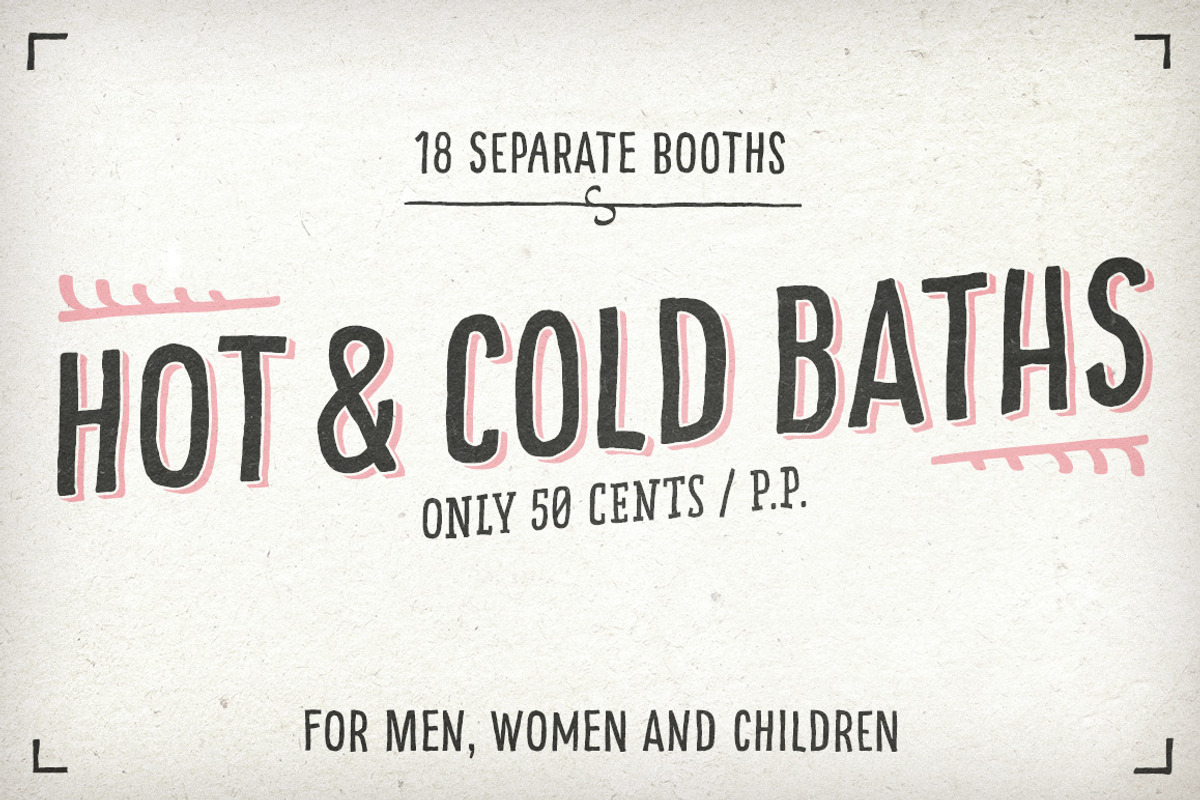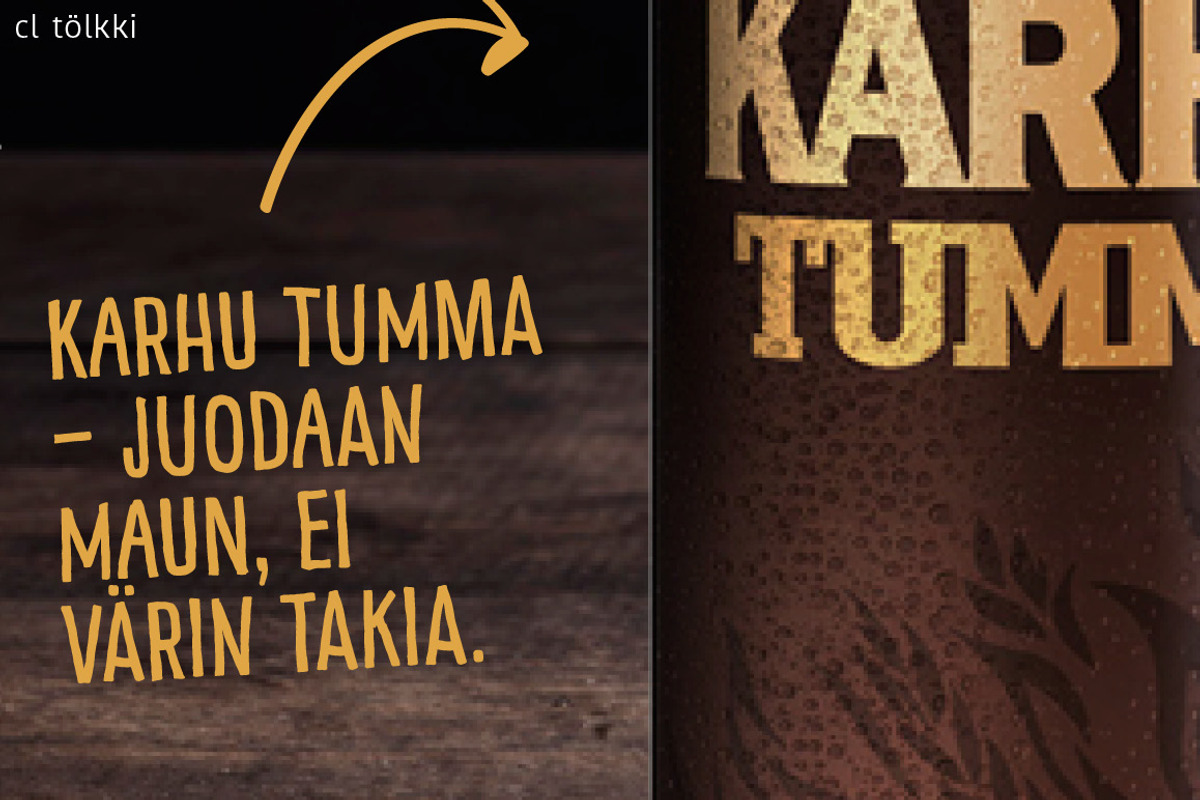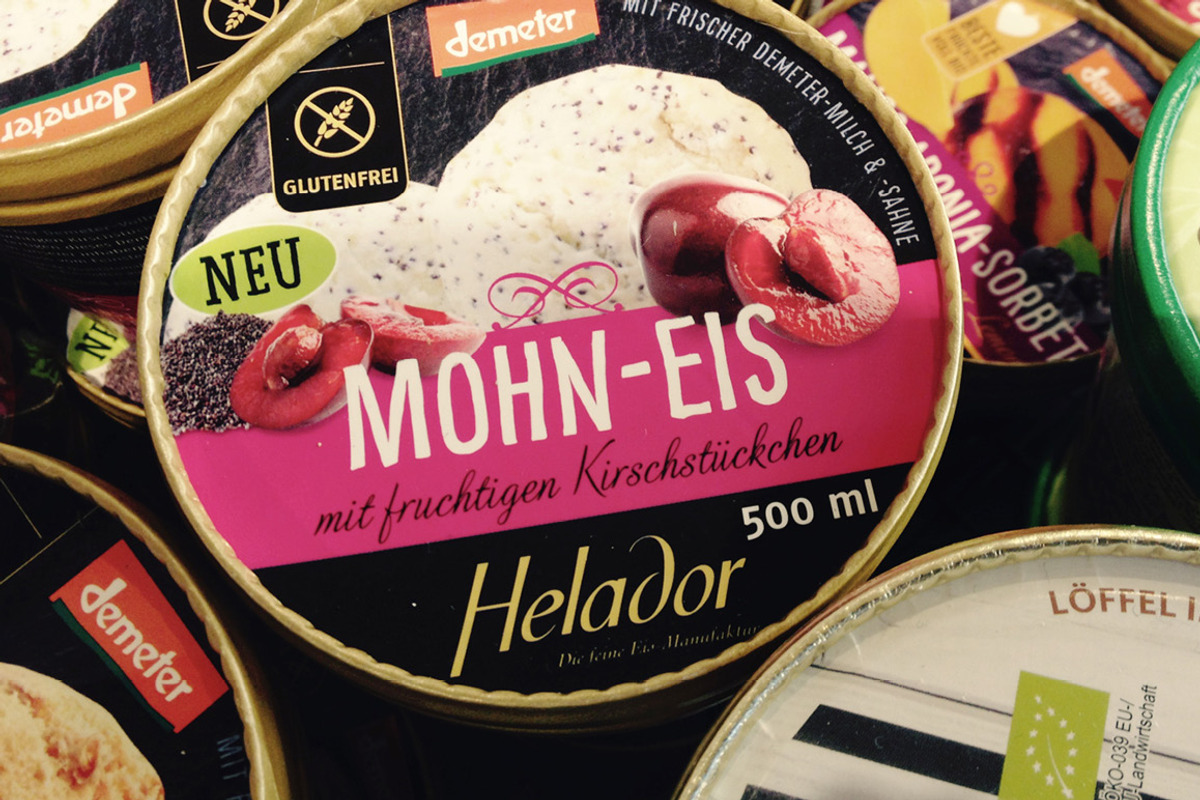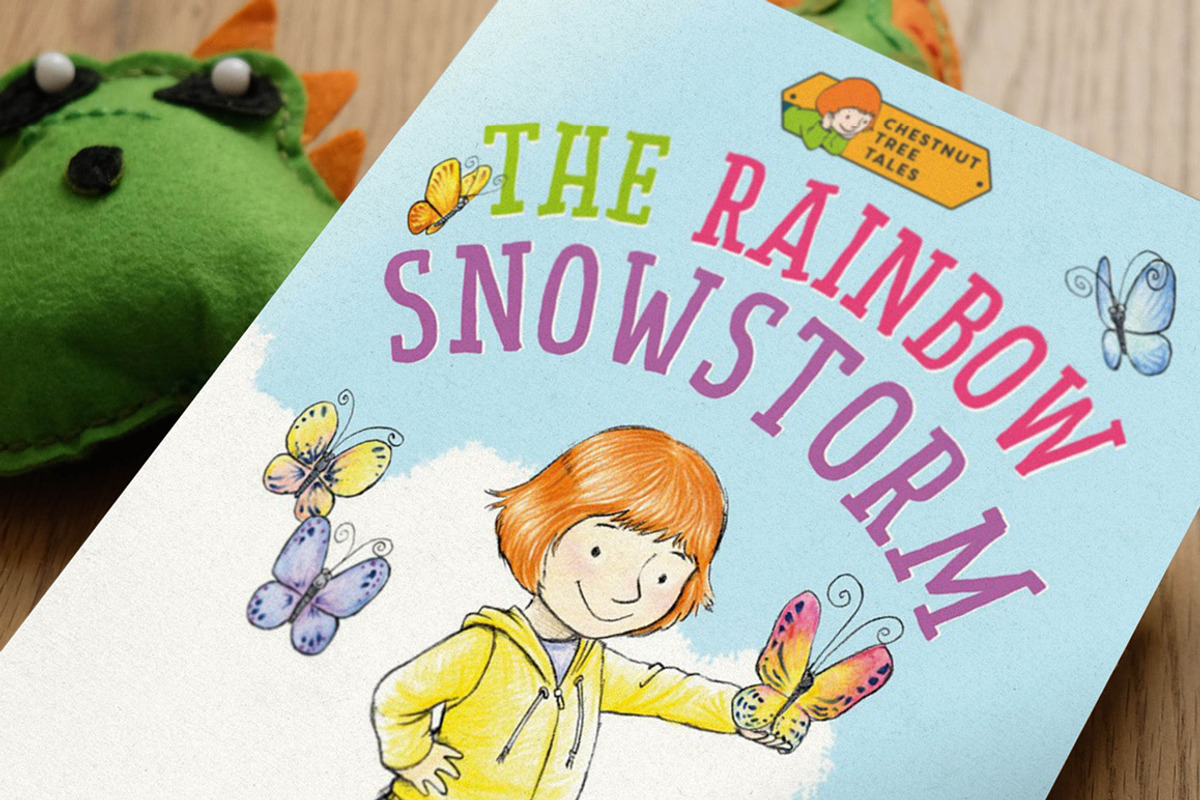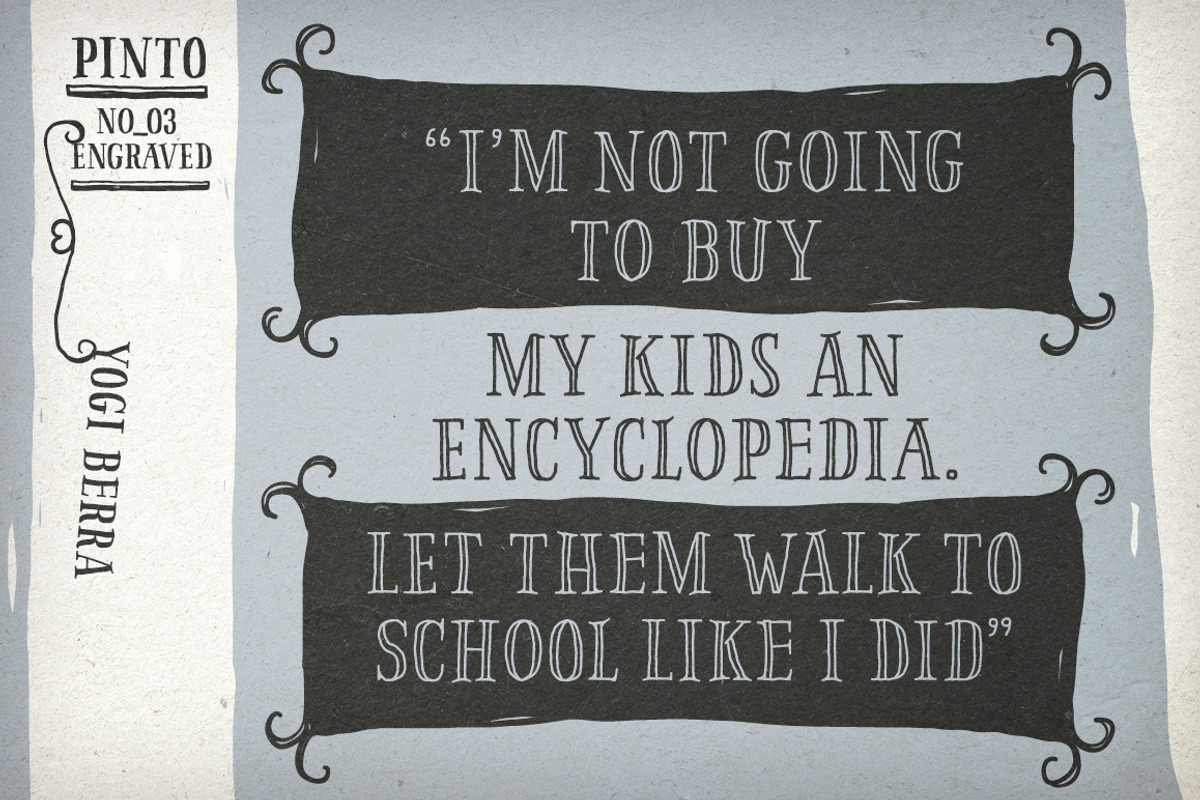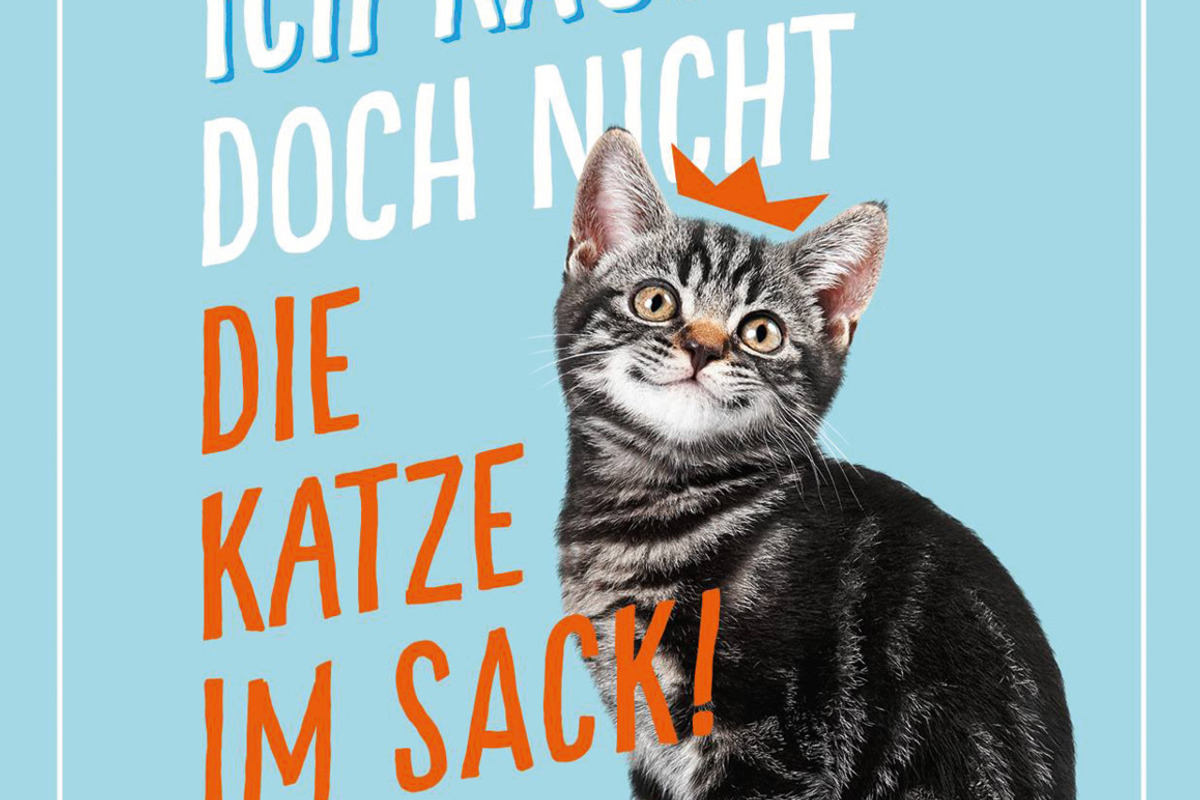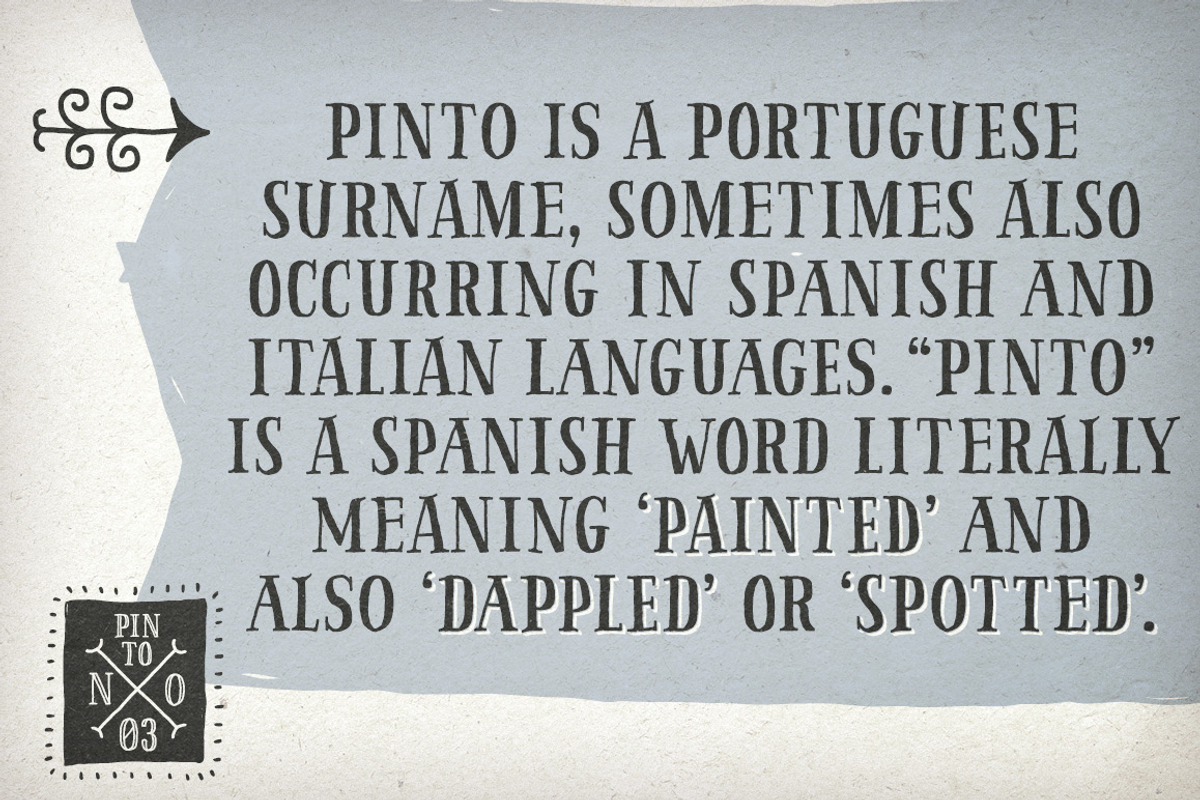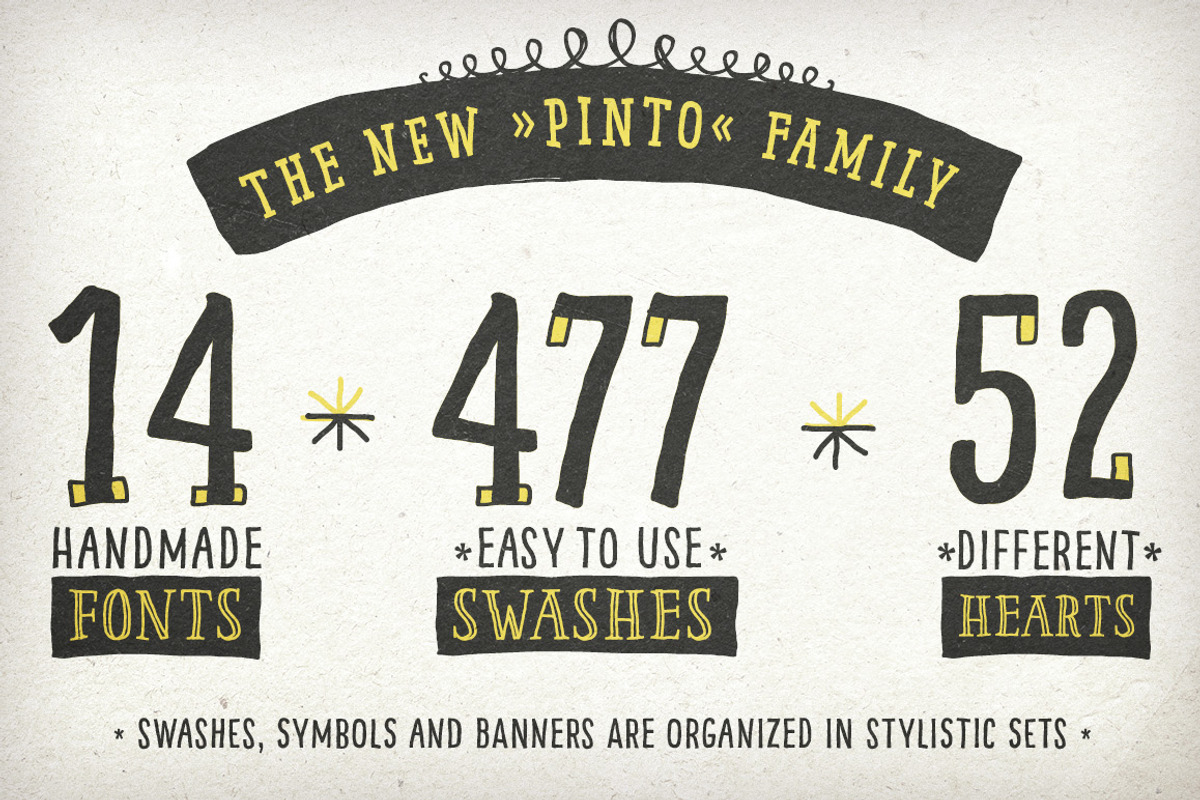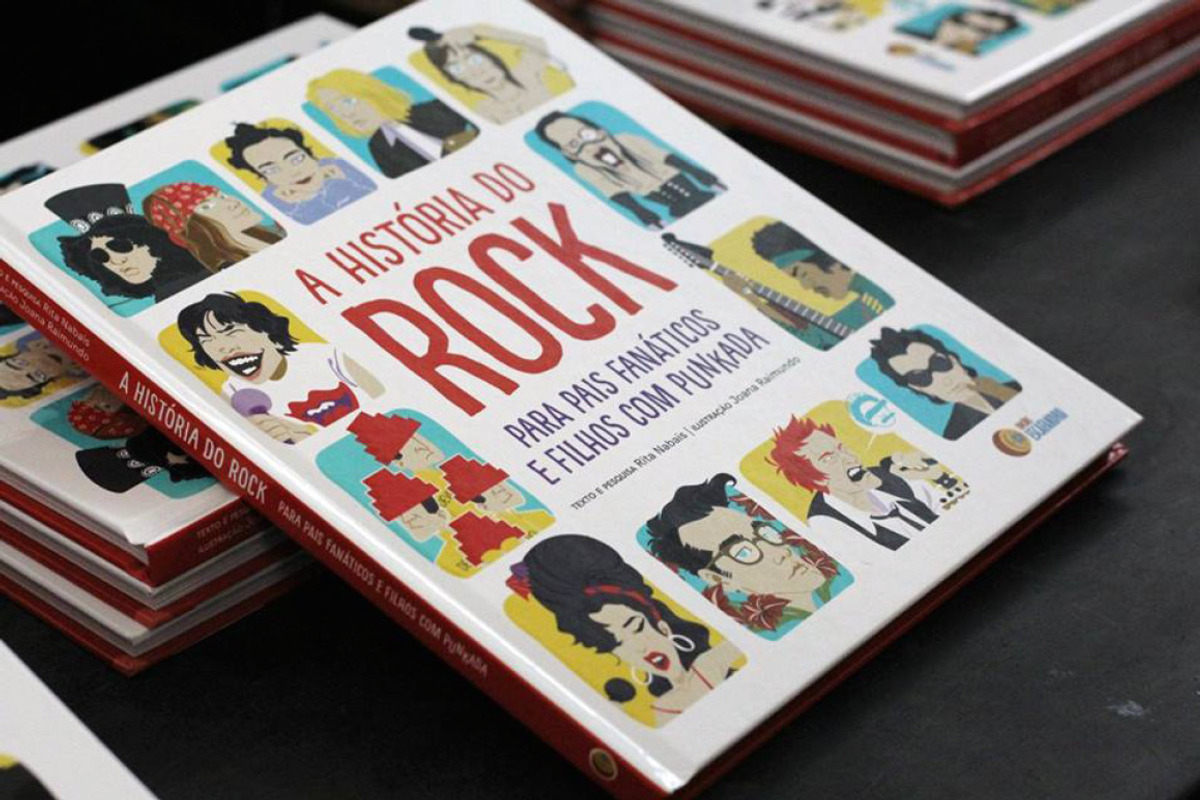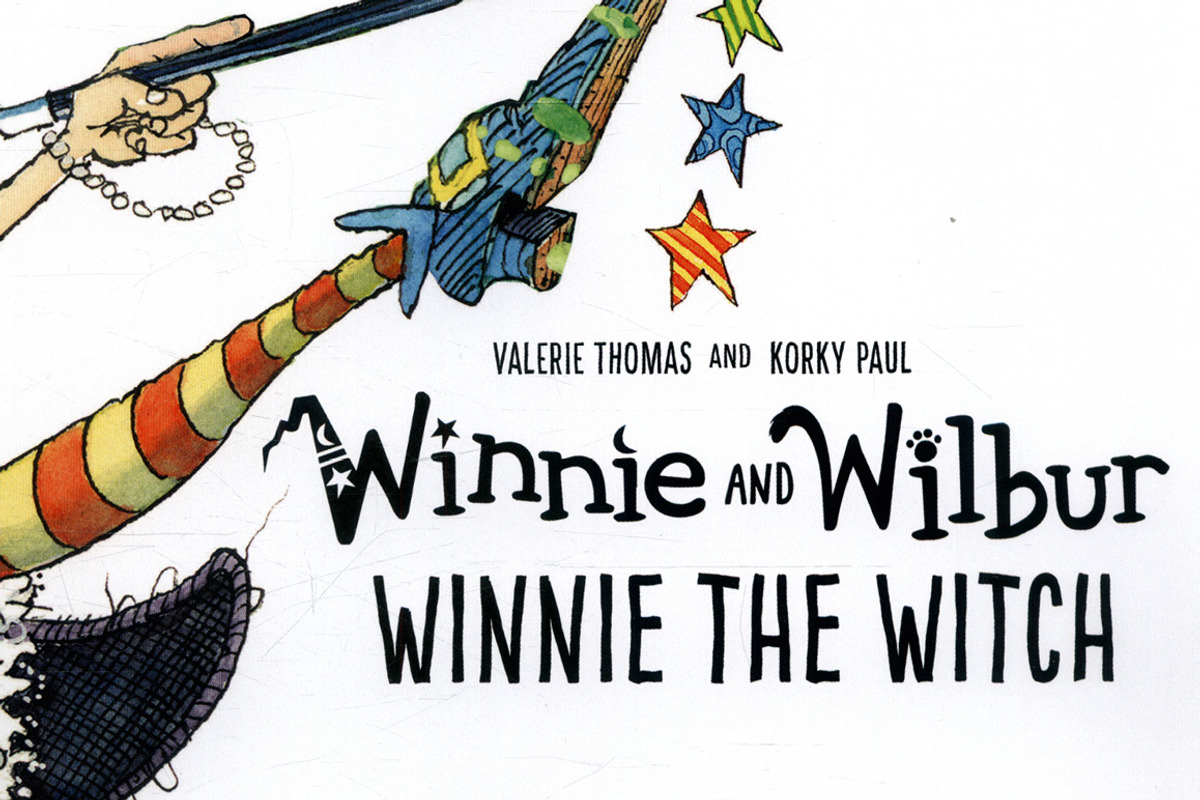
A Hand Drawn & Lettered Bundle
Written as drawn – Pinto lets you transform type into an exciting and beautiful piece of work. The irregular, hand-lettered look adds a real human touch to things and comes along with a lot of loving details. Combine all font-styles the way you want, add some ornamental swashes or banners and even a single word becomes magnificent.
Four subfamilies plus hundreds of ornaments in 1 font combo!
Flexibility is the name of the game with four subfamilies including shadow-, outline-, display- and layer-variations. On top of that is NO_05, a set of 800+ ornaments to dress up any typographic project. Browse through swashes, flourishes, dividers, corners, ribbons, banners, frames, arrows, hearts and stars. All ornaments are abundant with details and often available in different stroke thicknesses. Scale them up to meet your personal needs!
The extended character set includes uppercase letters in two automatically alternating versions (activate OpenType “Contextual Alternates”). It supports Central and Eastern European as well as Western European Languages. All Pinto-NO_05 symbols are provided with PUA-Unicodes for easy copy & paste.
The Pinto family is tailored for food-, magazine-, book- and packaging-design.
- Pinto-NO_01.otf: a narrow hand-drawn Sans Serif
- Pinto-NO_02.otf: a narrow hand-drawn Slab Serif
- Pinto-NO_02Outline.otf: a playful variant with serifs drawn as outline
- Pinto-NO_03.otf: a narrow hand-drawn Sans Serif
- Pinto-NO_03EngravedDisplay.otf: similar to NO_03Engraved but with thinner outlines
- Pinto-NO_04.otf: a narrow hand-drawn Sans Serif with a little bit of Western style
- Pinto-NO_04Base.otf: combine this one with NO_04Dots for two-colored designs
- Pinto-NO_04Dots.otf: combine this one with NO_04Base for two-colored designs
- Pinto-NO_05Banners.otf: 333 different banners ribbons & frames
- Pinto-NO_05Swashes.otf: 484 different swashes, flourishes, dividers & corners
- Pinto-NO_05Symbols.otf: 275 different arrows, hearts & stars